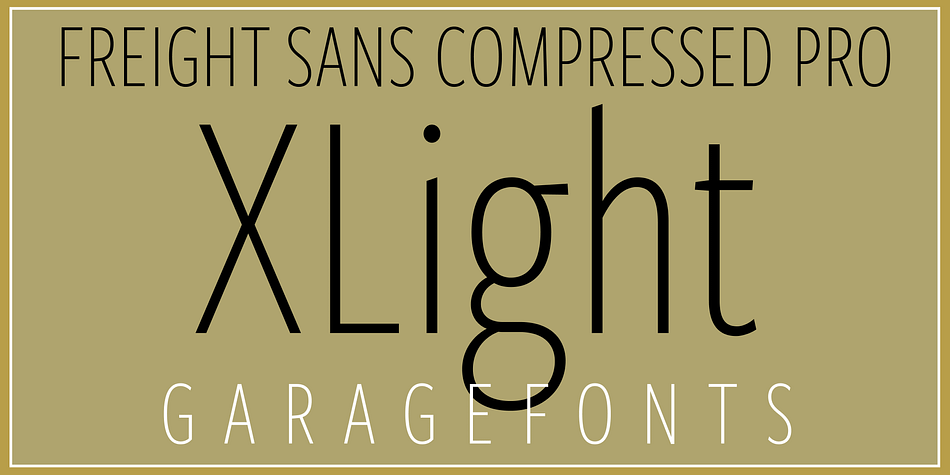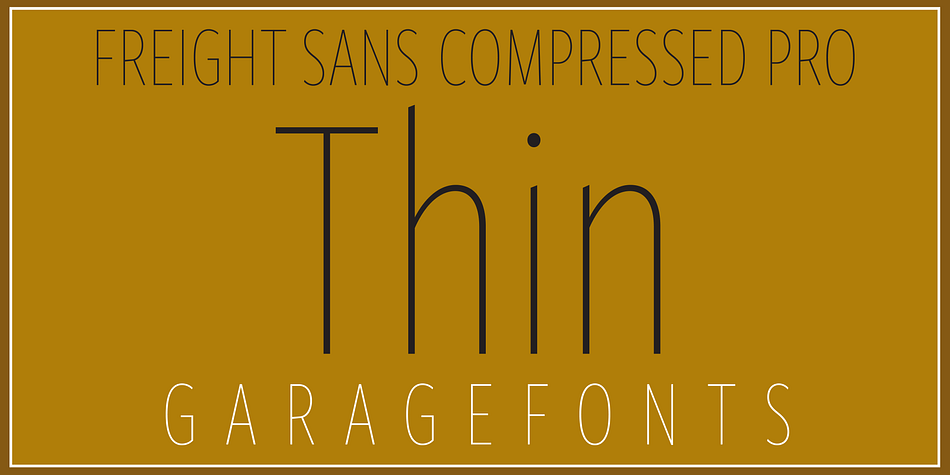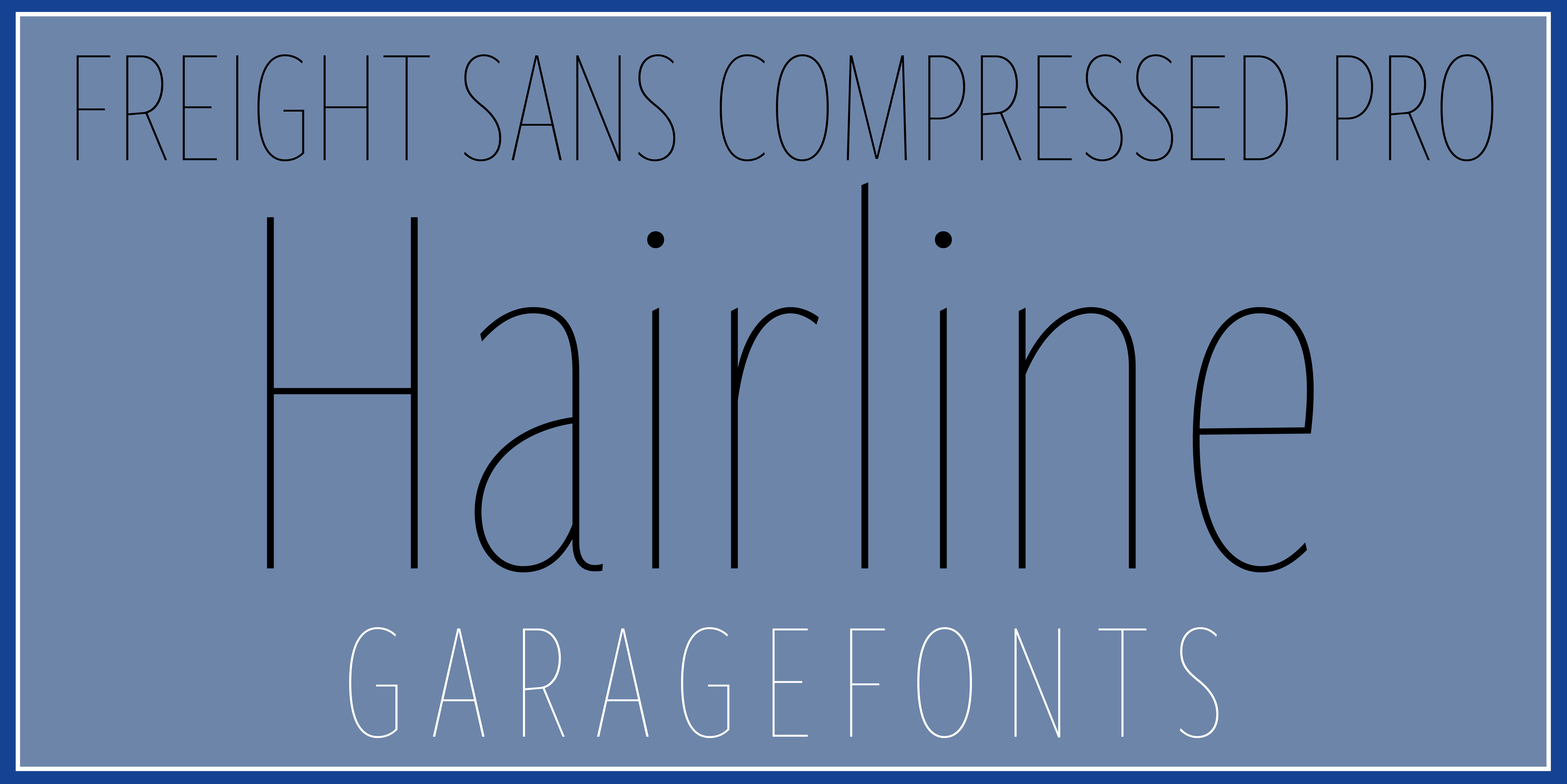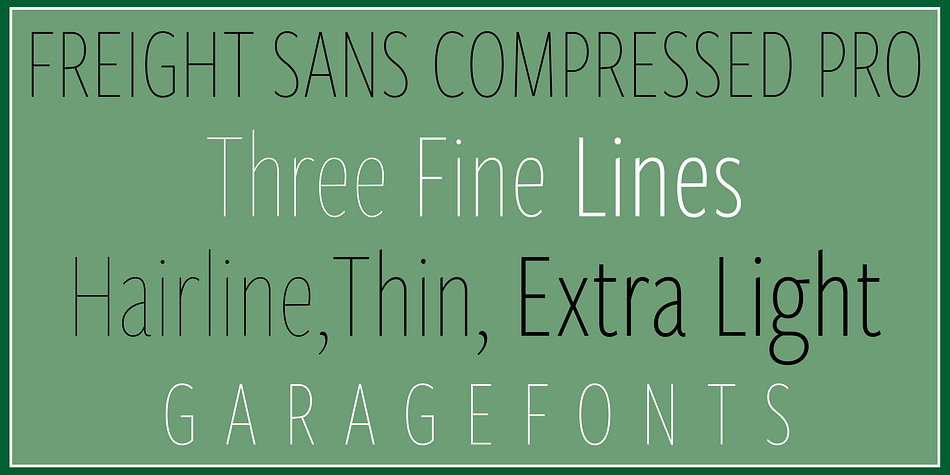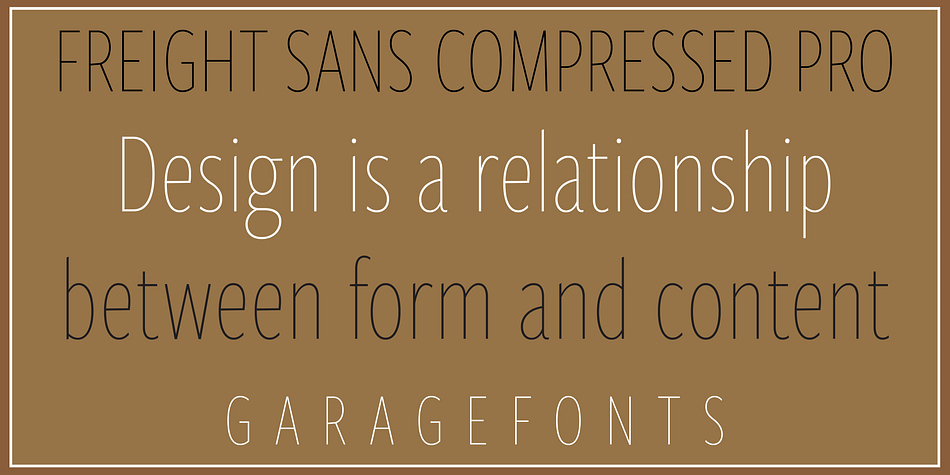
Freight Sans H Compressed Pro Hairlines
Designed by Robby Woodard, Freight Sans H Compressed Pro Hairlines is a sans serif font family. This typeface has six styles and was published by Freight Collection.
GarageFonts introduces four new weights of Freight Sans that go to the extremes—from the behemoth freight sans pro ultra black to the fine lines of freight sans pro hairline, thin and extra light, in three widths—normal, condensed and compressed, all with corresponding italics.
The extensive character sets include: small caps, ligatures, oldstyle and tabular figures along with support for over 40 western and Central European languages.